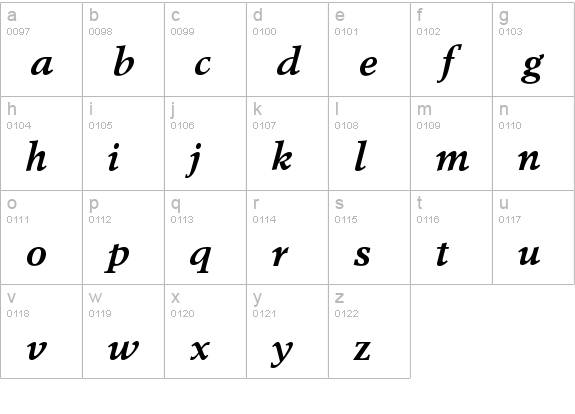
Berling Bold Italic Font Details
Berling Bold Italic is a strong, high-contrast, italic variant in the Berling typeface family \xE2\x80\x94 well suited to headlines, attention-grabbing titles, and strong calls-to-action.
The Berling Bold Italic font exudes a sense of sophistication and elegance with its distinctive slanted design and bold weight. This unique typeface strikes the perfect balance between modernity and tradition, making it a versatile choice for a wide range of design projects. Whether used for headlines, branding, or editorial layouts, Berling Bold Italic commands attention and adds a touch of flair to any text. And the best part? This stunning font is available for free download at FontsMarket.com, where you can easily access and enhance your creative projects with this premium typeface. Embrace the power of Berling Bold Italic to elevate your designs and make a lasting impression.